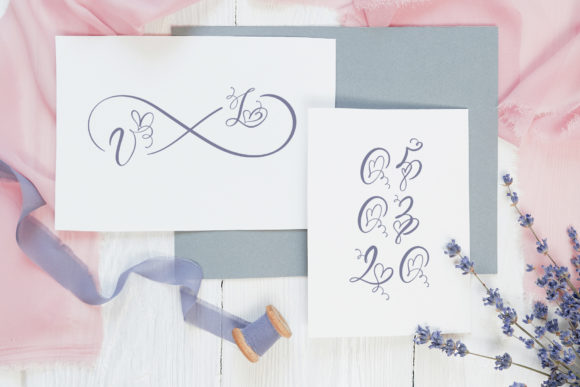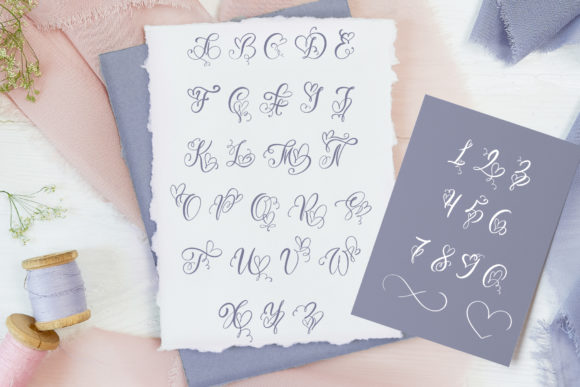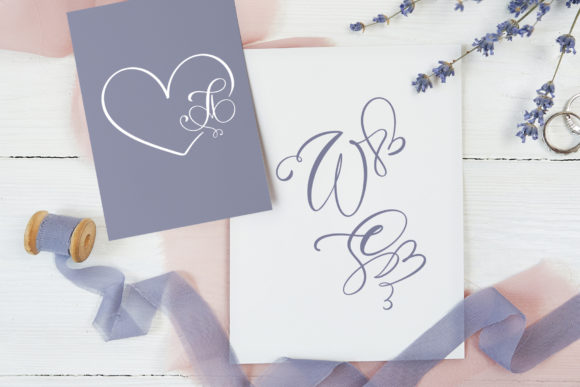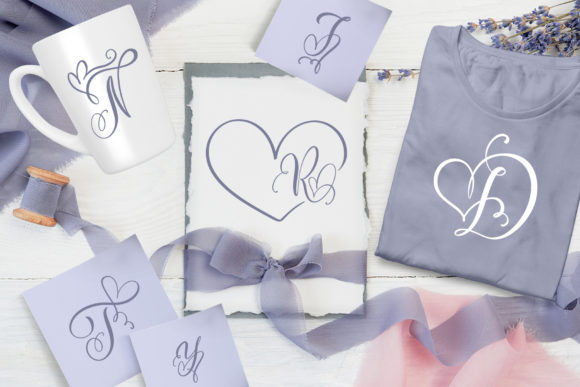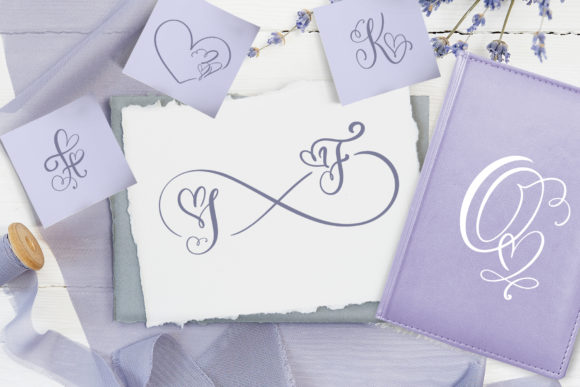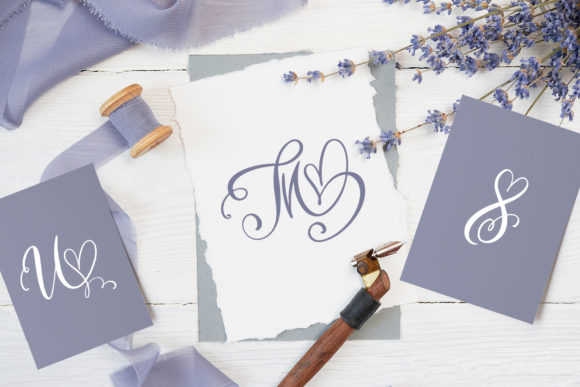
Introduction to Initial Valentine Font Font
Fonts play a crucial role in design, and the Initial Valentine Font font is a typeface that brings both character and versatility to any project. Whether you’re working on a branding project, a website, or a print design, the Initial Valentine Font font offers a unique style that can elevate your work.
Initial Valentine is a handwritten font that includes unique flourish monogram letters.
Perfect for weddings, Valentineβs Day greeting cards, logos, invitations, etc The elegant calligraphic lines will give a romantic vibe to your next designs.
Key Features of Initial Valentine Font Font
Why Choose Initial Valentine Font Font?
The Initial Valentine Font font is more than just a typeface β it’s a design tool that helps you communicate your message with style and clarity. Its unique character set and versatile design make it suitable for a wide range of applications, from elegant invitations to bold headlines.
With its carefully crafted letterforms and balanced proportions, the Initial Valentine Font font ensures readability and visual appeal across all mediums.
What makes Initial Valentine Font font special?
The Initial Valentine Font font stands out with its unique design, exceptional readability, and versatility across various design applications.